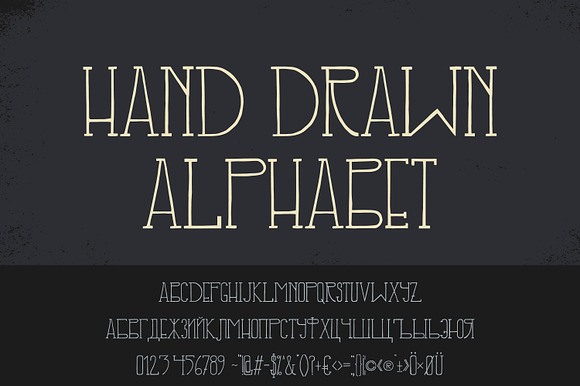
Hand drawn font
- illusign grotesque Regular
Why Hand drawn font is worth a look
Hand drawn font by illusign fits naturally into Branding, posters, packaging, typography.